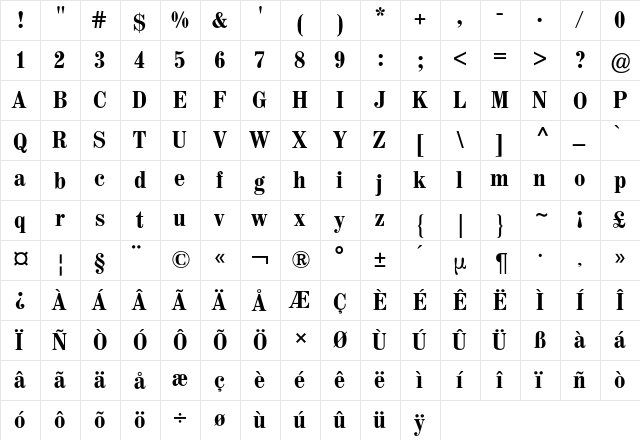
Madison BQ Regular Font Preview
Madison BQ Regular
Design Context for Madison BQ Typeface
Madison BQ is a composed and adaptable typeface that performs quietly and consistently across a wide range of design contexts.